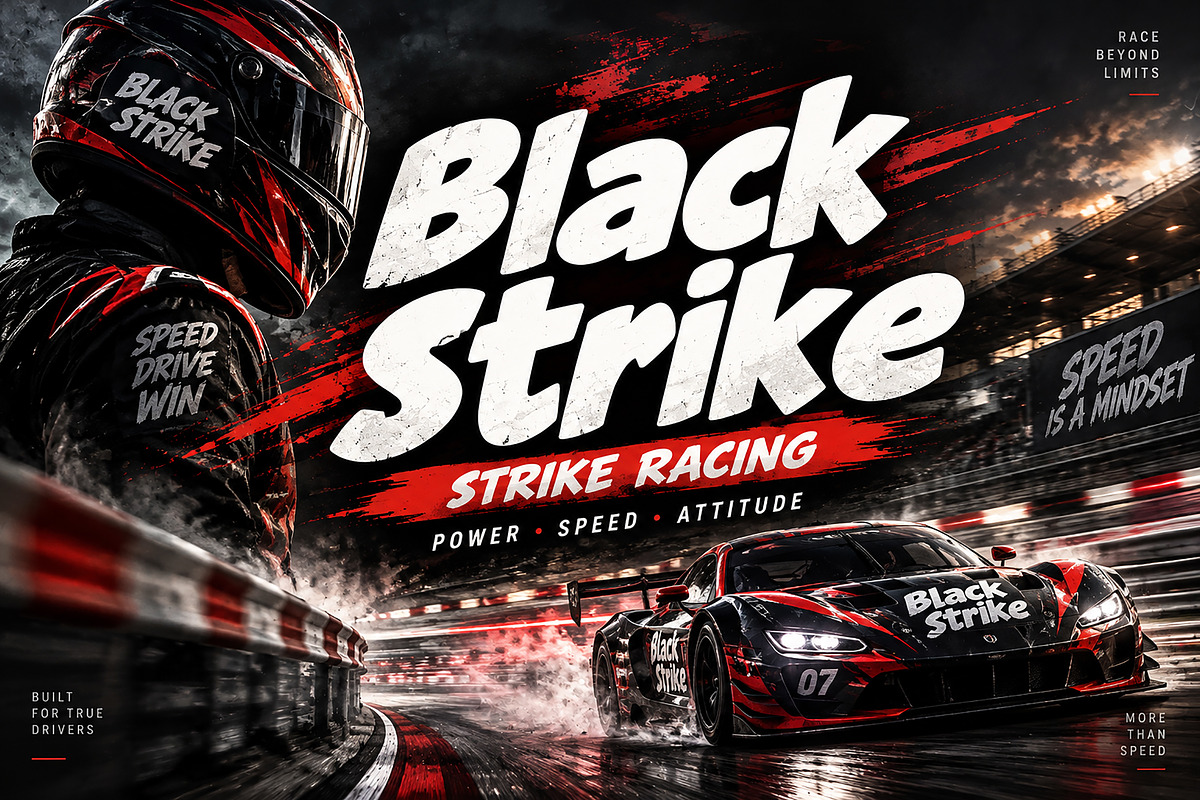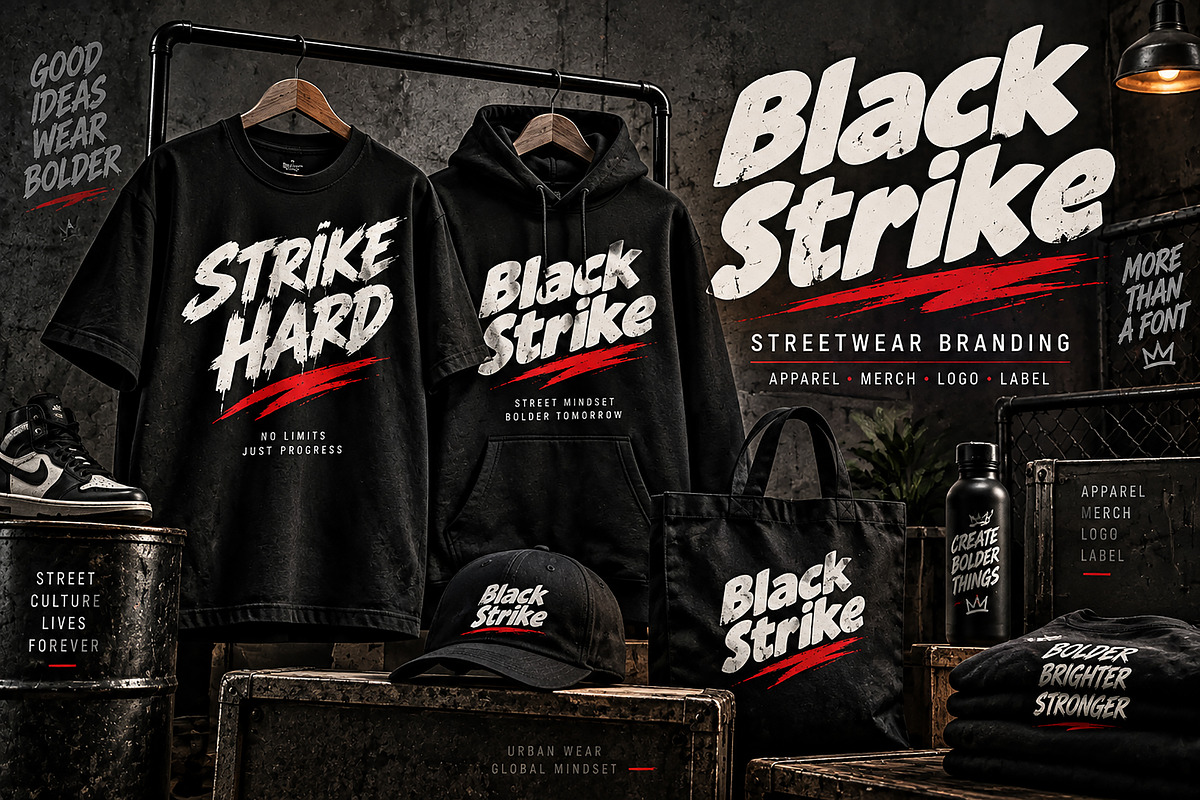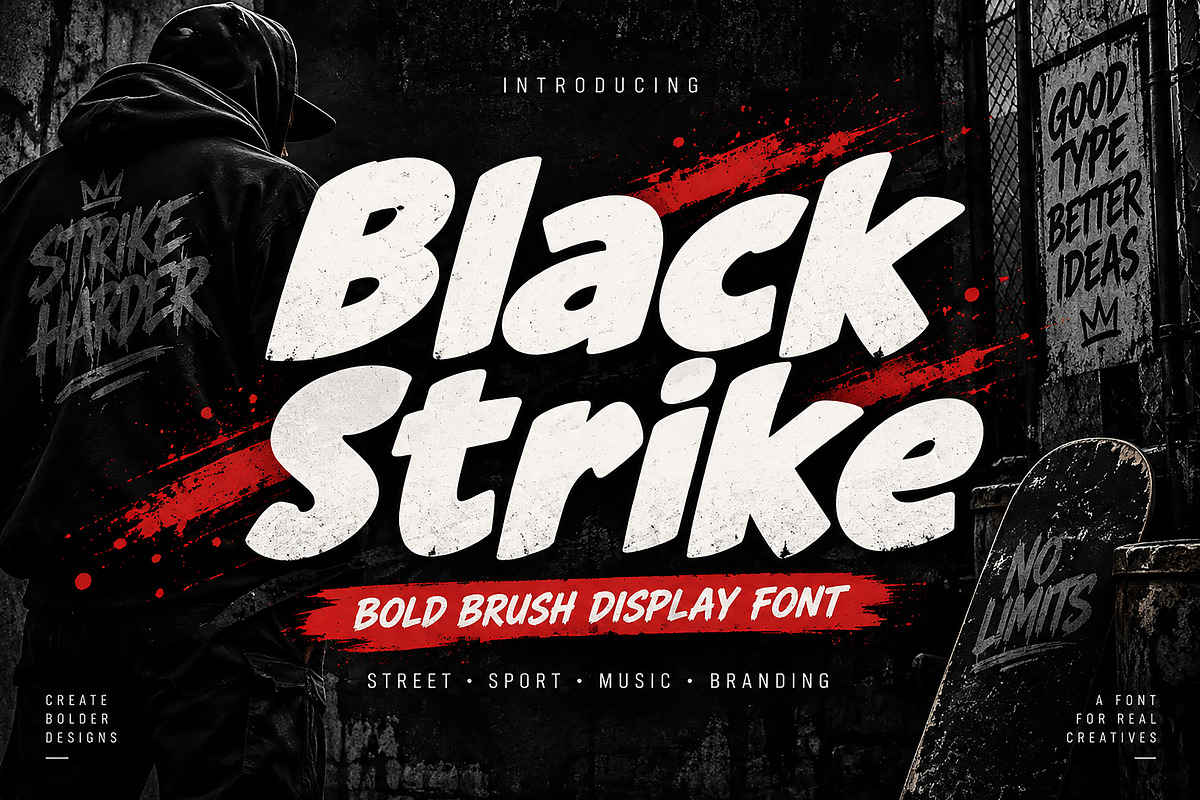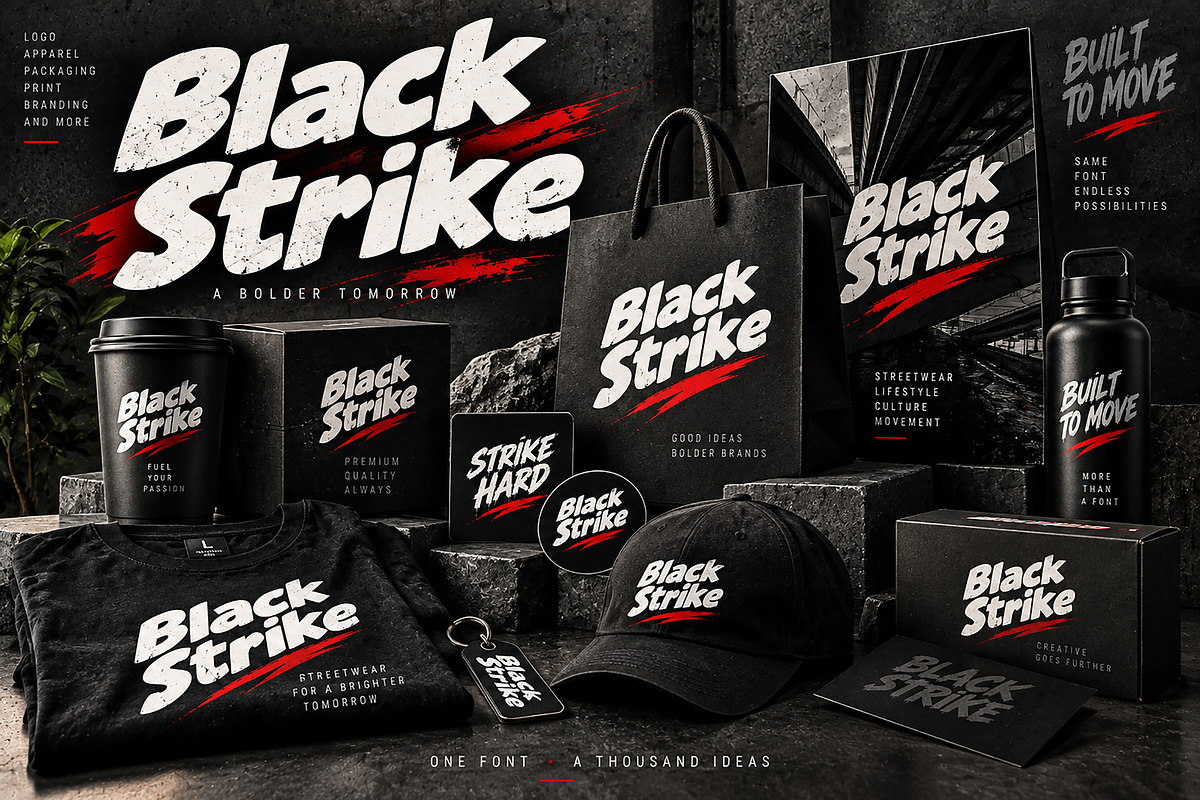
Black Strike
Black Strike is a bold and dynamic brush display font designed to bring powerful energy, movement, and attitude to your creative projects. With its heavy brush strokes, expressive shapes, slanted forms, and strong visual presence, Black Strike is perfect for designs that need to stand out.
This versatile display typeface works especially well for streetwear branding, sports graphics, racing designs, music posters, apparel, logos, merchandise, advertising, packaging, labels, and bold social media artwork.
Whether you're creating a powerful brand identity, an eye-catching T-shirt design, an energetic racing poster, or striking promotional artwork, Black Strike gives your typography a distinctive handmade brush character.
Streetwear & Fashion Branding
Sports & Racing Graphics
T-Shirt & Apparel Designs
Logos & Brand Identity
Music & Event Posters
Merchandise & Product Branding
Packaging & Labels
Advertising & Promotional Designs
Posters & Headlines
Black Strike — Bold lettering. Strong movement. Endless creative possibilities